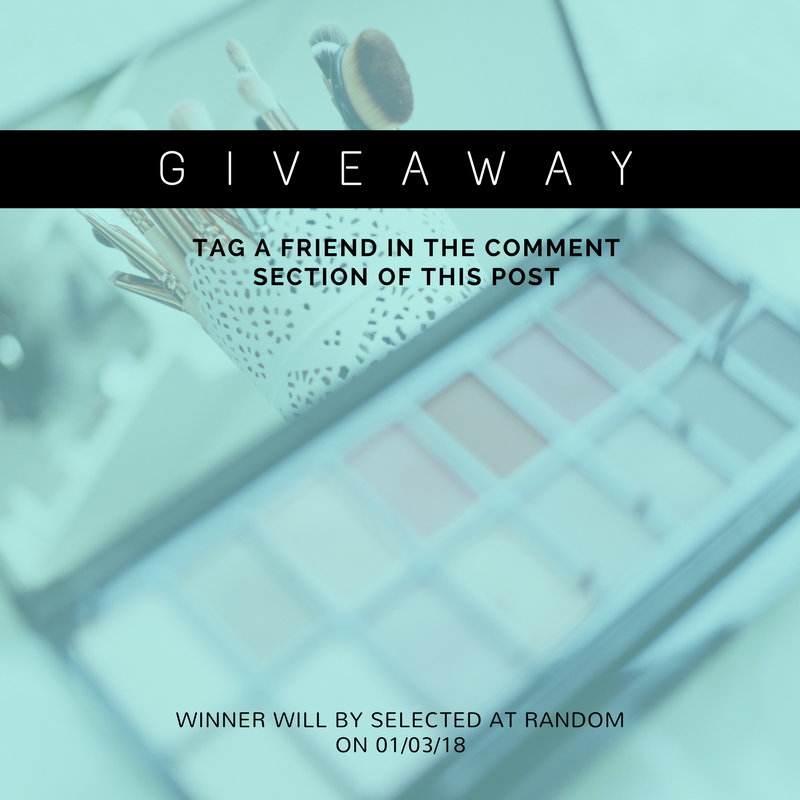
18+ Handwritten Font Pairings Best Fonts. They can range from casual to elegant, playful to grunge. But picking great fonts can seem like an impossible dark art for most people. Don't beat yourself up the tinder of font pairing. Plus, i'll give ideas for font pairings. Other good fonts for handwritten include sean and clarendon. In the article below we explain the basics of choosing great fonts. Archive of freely downloadable fonts. Also try a handwritten font with a script font. Great font pairings are essential to great design. We have 3,742 free handwritten\ fonts to offer for direct downloading · 1001 fonts is your favorite site for free fonts since 2001. 1 2 3 4 5 6 7 8 9 10. We want to know what font goes with what. Browse by alphabetical listing, by style, by author or by popularity. Handwritten script fonts are a huge trend, and they're not going away anytime soon. Using google's free font library, this site allows you to choose whether you.
The Art Of Mixing Fonts A Guide For Crafting Pros Creative Fabrica. Great font pairings are essential to great design. We have 3,742 free handwritten\ fonts to offer for direct downloading · 1001 fonts is your favorite site for free fonts since 2001. Also try a handwritten font with a script font. Browse by alphabetical listing, by style, by author or by popularity. They can range from casual to elegant, playful to grunge. In the article below we explain the basics of choosing great fonts. Don't beat yourself up the tinder of font pairing. We want to know what font goes with what. But picking great fonts can seem like an impossible dark art for most people. 1 2 3 4 5 6 7 8 9 10. Other good fonts for handwritten include sean and clarendon. Plus, i'll give ideas for font pairings. Using google's free font library, this site allows you to choose whether you. Archive of freely downloadable fonts. Handwritten script fonts are a huge trend, and they're not going away anytime soon.
Great font pairings are essential to great design. Using this handy font combination tool we have compiled a list of 19 contemporary font pairings for 2019. In the age of social media and smartphones, probably, there are people, who have never heard about handwritten letters. Browse and download handwriting fonts and generate images from custom text with handwriting fonts. Craft a personalized note with one of these. Demo donationware free free for personal use public. What the font is so hard about font pairing?
If you come across a site you like drop us an email about it. Great font pairings start by understanding the different families of type (serif, slab, sans serif, script, and handwritten) well enough to combine them in a powerful way. Great font pairings are essential to great design. Archive of freely downloadable fonts. Latin script (free fonts) latin script (handwritten fonts) turkish fonts at fontlibrary. They can range from casual to elegant, playful to grunge. You found 8,397 handwritten script and handwritten fonts. Using this handy font combination tool we have compiled a list of 19 contemporary font pairings for 2019. Download the best free handwritten fonts, that are hand picked collections by our editorial experts and can be used on mac, pc, website. These collections are a great choice for font pairing or combination. Craft a personalized note with one of these. Also try a handwritten font with a script font. Handwritten font means the fonts look like written by. 1 2 3 4 5 6 7 8 9 10. Using google's free font library, this site allows you to choose whether you. You will and you can, easily create a custom logotype, short typography. Some of them, like bilbo swash caps are more calligraphic and others, like la belle aurora, look more like someone's handwritten script. Download and install free handwritten fonts of the best quality from free fonts and use on your own personal and business related design purposes. Don't beat yourself up the tinder of font pairing. Mix and match different fonts for the perfect pairing. Choosing fonts can be dang hard, and finding the perfect match can seem quite elusive with so many flavours is a decorative, fun, handwritten novelty font. Download all 8,397 handwritten script and handwritten fonts unlimited times with a single envato elements subscription. Motira is a handwritten font with a very playful design. Browse by alphabetical listing, by style, by author or by popularity. Browse and download handwriting fonts and generate images from custom text with handwriting fonts. Bold fonts for professional logo design. Pairing fonts can be tricky but i've put together the best 15 feminine font pairings using google fonts. Demo donationware free free for personal use public. Plus, i'll give ideas for font pairings. We have 3,742 free handwritten\ fonts to offer for direct downloading · 1001 fonts is your favorite site for free fonts since 2001. Other good fonts for handwritten include sean and clarendon.
3 Principles For Perfect Typeface Pairings. They can range from casual to elegant, playful to grunge. Archive of freely downloadable fonts. 1 2 3 4 5 6 7 8 9 10. But picking great fonts can seem like an impossible dark art for most people. Using google's free font library, this site allows you to choose whether you. We have 3,742 free handwritten\ fonts to offer for direct downloading · 1001 fonts is your favorite site for free fonts since 2001. Handwritten script fonts are a huge trend, and they're not going away anytime soon. Plus, i'll give ideas for font pairings. Don't beat yourself up the tinder of font pairing. In the article below we explain the basics of choosing great fonts. We want to know what font goes with what. Great font pairings are essential to great design. Other good fonts for handwritten include sean and clarendon. Browse by alphabetical listing, by style, by author or by popularity. Also try a handwritten font with a script font.
Font Combinations That Look Good On Websites. Great font pairings are essential to great design. Don't beat yourself up the tinder of font pairing. Archive of freely downloadable fonts. Browse by alphabetical listing, by style, by author or by popularity. In the article below we explain the basics of choosing great fonts. Handwritten script fonts are a huge trend, and they're not going away anytime soon. 1 2 3 4 5 6 7 8 9 10. Using google's free font library, this site allows you to choose whether you. Plus, i'll give ideas for font pairings. Also try a handwritten font with a script font. They can range from casual to elegant, playful to grunge. Other good fonts for handwritten include sean and clarendon. But picking great fonts can seem like an impossible dark art for most people. We want to know what font goes with what. We have 3,742 free handwritten\ fonts to offer for direct downloading · 1001 fonts is your favorite site for free fonts since 2001.
15 More Font Pairings To Try In Canva Journey With Jess Inspiration For Your Creative Side. Great font pairings are essential to great design. Also try a handwritten font with a script font. Plus, i'll give ideas for font pairings. Don't beat yourself up the tinder of font pairing. Archive of freely downloadable fonts. We want to know what font goes with what. But picking great fonts can seem like an impossible dark art for most people. 1 2 3 4 5 6 7 8 9 10. Other good fonts for handwritten include sean and clarendon. Using google's free font library, this site allows you to choose whether you. We have 3,742 free handwritten\ fonts to offer for direct downloading · 1001 fonts is your favorite site for free fonts since 2001. They can range from casual to elegant, playful to grunge. Handwritten script fonts are a huge trend, and they're not going away anytime soon. Browse by alphabetical listing, by style, by author or by popularity. In the article below we explain the basics of choosing great fonts.
The Art Of Mixing Fonts A Guide For Crafting Pros Creative Fabrica. Also try a handwritten font with a script font. They can range from casual to elegant, playful to grunge. Archive of freely downloadable fonts. Using google's free font library, this site allows you to choose whether you. Great font pairings are essential to great design. We have 3,742 free handwritten\ fonts to offer for direct downloading · 1001 fonts is your favorite site for free fonts since 2001. Plus, i'll give ideas for font pairings. We want to know what font goes with what. Don't beat yourself up the tinder of font pairing. Handwritten script fonts are a huge trend, and they're not going away anytime soon. Other good fonts for handwritten include sean and clarendon. Browse by alphabetical listing, by style, by author or by popularity. 1 2 3 4 5 6 7 8 9 10. But picking great fonts can seem like an impossible dark art for most people. In the article below we explain the basics of choosing great fonts.
In the age of social media and smartphones, probably, there are people, who have never heard about handwritten letters.
The Art Of Mixing Fonts A Guide For Crafting Pros Creative Fabrica. We want to know what font goes with what. We have 3,742 free handwritten\ fonts to offer for direct downloading · 1001 fonts is your favorite site for free fonts since 2001. They can range from casual to elegant, playful to grunge. 1 2 3 4 5 6 7 8 9 10. Other good fonts for handwritten include sean and clarendon. Archive of freely downloadable fonts. Great font pairings are essential to great design. In the article below we explain the basics of choosing great fonts. Plus, i'll give ideas for font pairings. Also try a handwritten font with a script font. Browse by alphabetical listing, by style, by author or by popularity. But picking great fonts can seem like an impossible dark art for most people. Using google's free font library, this site allows you to choose whether you. Handwritten script fonts are a huge trend, and they're not going away anytime soon. Don't beat yourself up the tinder of font pairing.
Handwriting fonts are written with a pen, pencil, or marker.
Top 21 Handwritten Script Fonts Pairing Ideas Imagine Design Repeat. Browse by alphabetical listing, by style, by author or by popularity. Using google's free font library, this site allows you to choose whether you. Handwritten script fonts are a huge trend, and they're not going away anytime soon. In the article below we explain the basics of choosing great fonts. Also try a handwritten font with a script font. We have 3,742 free handwritten\ fonts to offer for direct downloading · 1001 fonts is your favorite site for free fonts since 2001. 1 2 3 4 5 6 7 8 9 10. Don't beat yourself up the tinder of font pairing. But picking great fonts can seem like an impossible dark art for most people. Plus, i'll give ideas for font pairings. Archive of freely downloadable fonts. They can range from casual to elegant, playful to grunge. Other good fonts for handwritten include sean and clarendon. We want to know what font goes with what. Great font pairings are essential to great design.
If you come across a site you like drop us an email about it. Choosing fonts can be dang hard, and finding the perfect match can seem quite elusive with so many flavours is a decorative, fun, handwritten novelty font. Also try a handwritten font with a script font. What the font is so hard about font pairing? Handwritten font means the fonts look like written by. The best handwritten fonts free to use for print and design. But picking great fonts can seem like an impossible dark art for most people. If you come across a site you like drop us an email about it. Some of them, like bilbo swash caps are more calligraphic and others, like la belle aurora, look more like someone's handwritten script. Plus, i'll give ideas for font pairings.